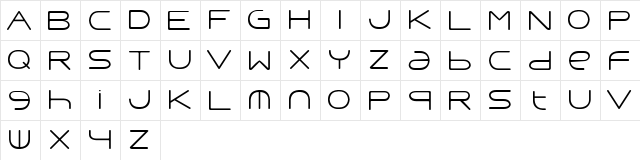
Punavuori 00150 Regular
Design Context for Punavuori 00150 Typeface
Punavuori 00150 takes a measured approach to typography — its balanced proportions and neutral character make it a reliable workhorse for both digital and print work.